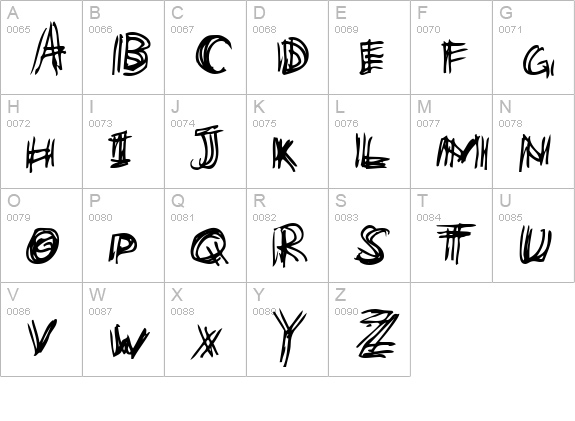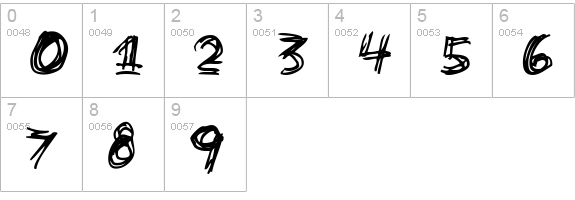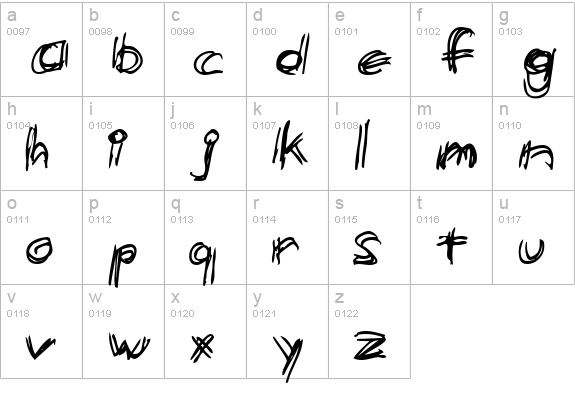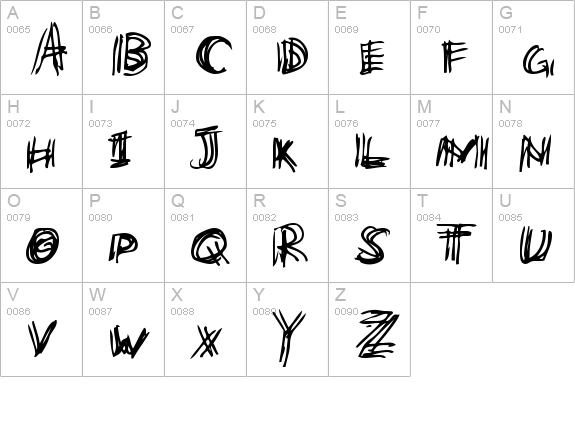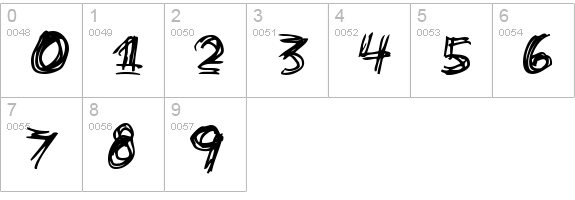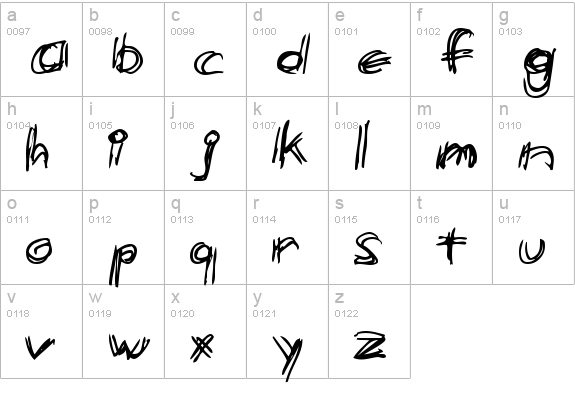
etchy Font Details
Etchy font is a stunningly unique typeface that brings a touch of elegance and sophistication to any project. Its intricate, hand-drawn style creates a beautifully textured appearance that is both captivating and versatile. Whether you're designing a wedding invitation, a logo, or a poster, Etchy font is sure to make a lasting impression. The best part? Etchy font is completely free to download at FontsMarket.com. This means you can add this exquisite typeface to your collection without any cost, making it accessible to designers of all levels. Don't miss out on the opportunity to enhance your projects with the beauty of Etchy font - download it today and let your creativity shine!